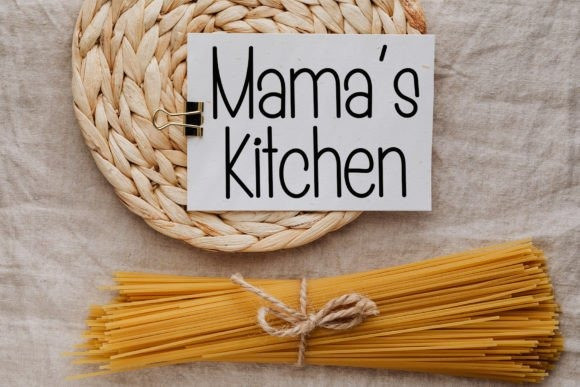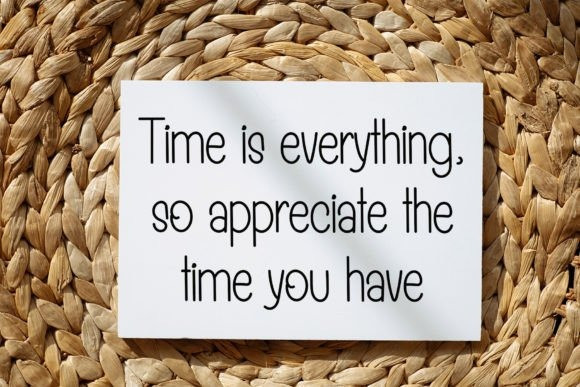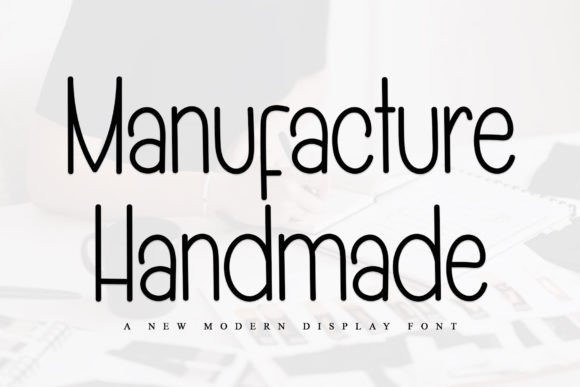
Manufacture Handmade Font
Manufacture Handmade Font is a neat and beautiful display font described by an elegant touch, perfect for your favorite projects. Fall in love with its incredibly distinct and timeless style, and use it to create spectacular designs!